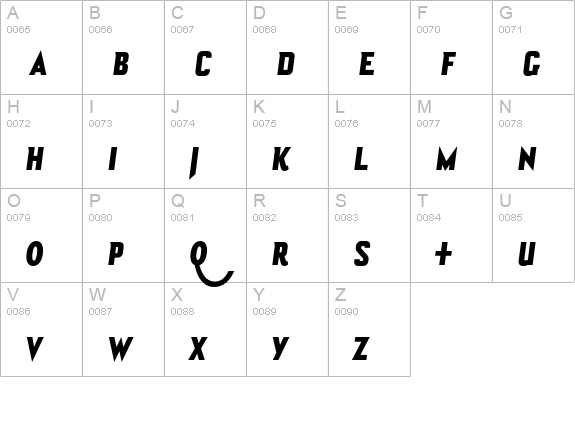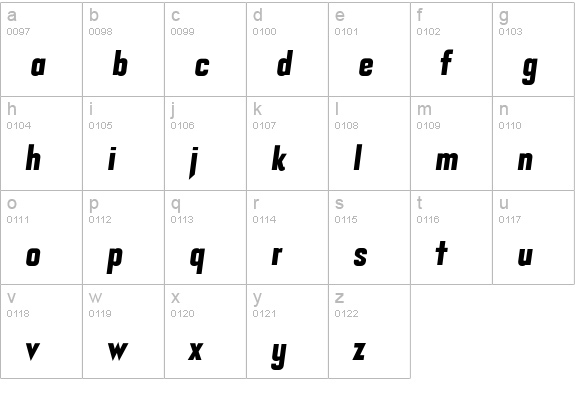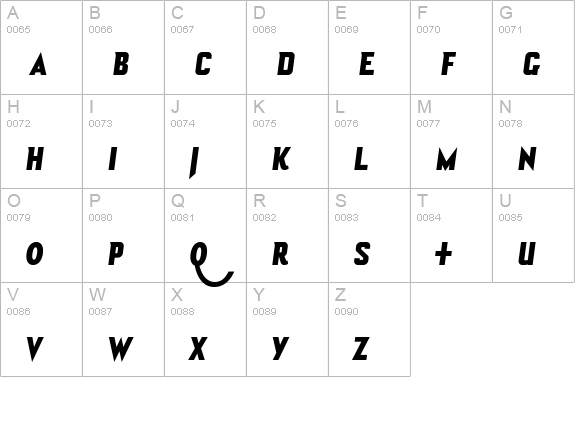
Bourgeois UltraCondItalAlt Font Details
Bourgeois UltraCondItalAlt font is a stunning and elegant typeface that exudes sophistication and luxury. With its ultra-condensed style and graceful italics, this font is perfect for adding a touch of refinement to any design project. The sleek and contemporary look of Bourgeois UltraCondItalAlt makes it ideal for fashion, beauty, and lifestyle branding, as well as editorial design and high-end packaging. Best of all, this exquisite font is available for free download at FontsMarket.com. Whether you're a professional designer looking to elevate your work or a creative enthusiast seeking to enhance your projects, Bourgeois UltraCondItalAlt is a must-have font that will surely impress with its timeless appeal and versatility. Download it today and add a touch of sophistication to your designs effortlessly.